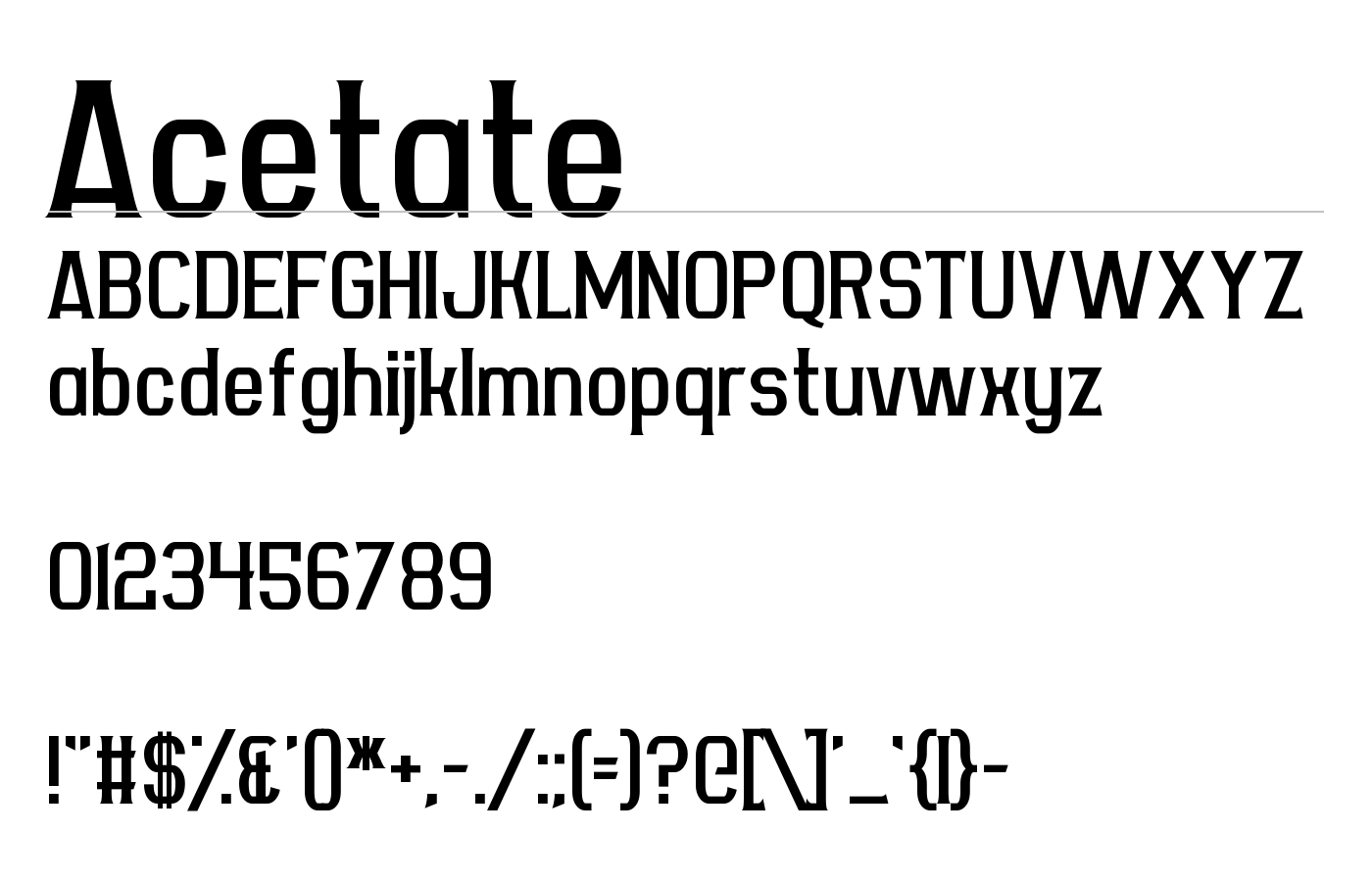
Acetate is a distinctive slab serif font with a modern, condensed style that features strong vertical lines and a high contrast between thick and thin strokes. Its unique letterforms, including bracketed serifs and single-story characters, give it a bold yet elegant feel, making it ideal for eye-catching headlines, logos, and branding projects that seek a contemporary, vintage-inspired look. This font works beautifully where a strong, stylish presence is needed without sacrificing readability.
Acetate Font
About Acetate Font